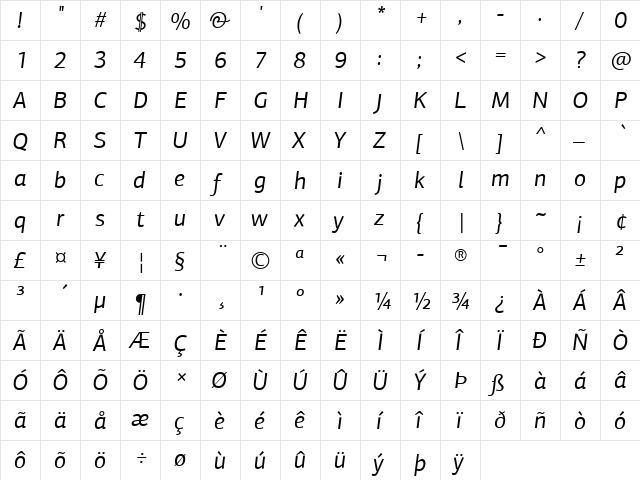
PF Agora Sans Pro Italic
Italic · Parachute蠗orldwide Panos Vassiliou ·
Year 2006
Foundry Parachute蠗orldwide
FoundryParachute蠗orldwide
DesignerPanos Vassiliou
Year2006
Design Context for PF Agora Sans Pro Typeface
PF Agora Sans Pro is a composed and adaptable typeface that performs quietly and consistently across a wide range of design contexts. Its italic angle brings a sense of urgency and motion to the letterforms.
Pro Tip: Try PF Agora Sans Pro for annotation and caption copy alongside an upright companion — the contrast in angle creates a dynamic but ordered typographic system.